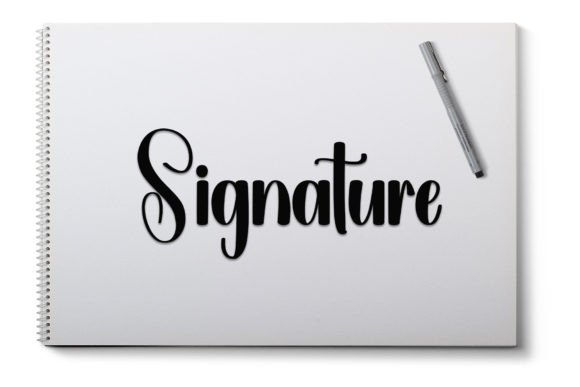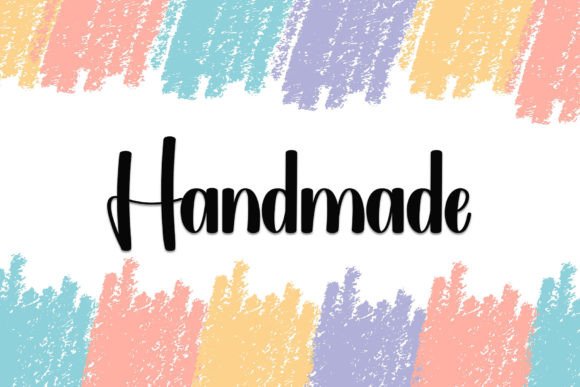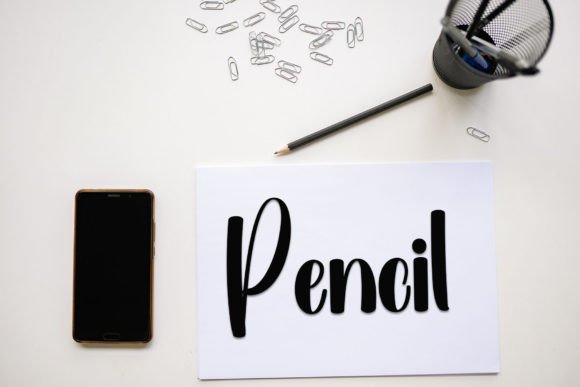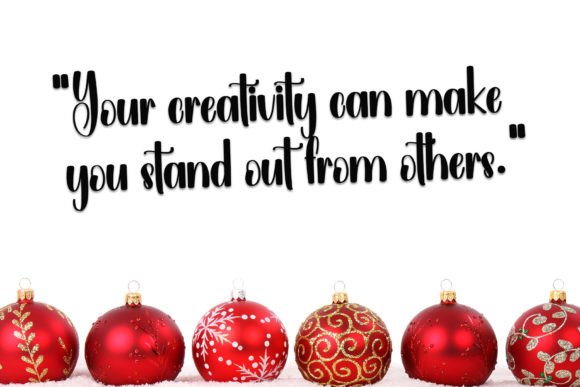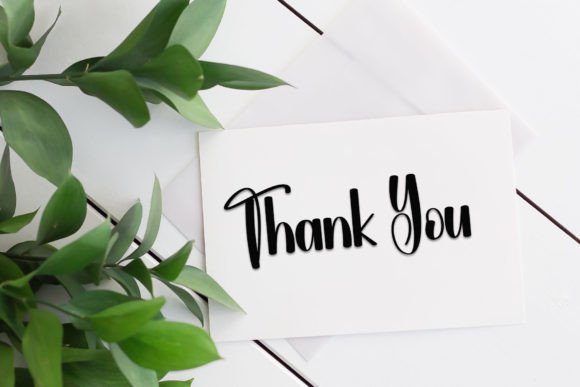
Hawaii Font: The Ultimate Festive Typeface for Your Holiday Designs
Are you looking for a font that embodies the spirit of the holiday season? Do you want to add a touch of charm and whimsy to your designs? Look no further than the Hawaii Font! This festive and happy typeface is perfect for greeting cards, gift labels, and holiday-themed projects. In this article, we’ll dive into the features and benefits of the Hawaii Font, and explore how it can elevate your designs to the next level.
A Festive and Happy Typeface
The Hawaii Font is a decorative typeface that exudes a sense of joy and festivity. Its unique flair and design elements are reminiscent of traditional holiday fonts, but with a modern twist. The font’s playful and cheerful atmosphere makes it perfect for designers and crafters who want to create holiday-themed projects that stand out from the crowd.
Perfect for Holiday Designs
The Hawaii Font is specifically designed for holiday-themed projects, making it the perfect choice for designers and crafters who want to create festive and engaging designs. Whether you’re creating greeting cards, gift labels, or holiday-themed posters, this font is sure to add a touch of charm and whimsy to your designs.
Decorative Elements and Unique Flair
The Hawaii Font features a range of decorative elements and unique flair that set it apart from other fonts. From intricate swashes to playful ligatures, this font has everything you need to create stunning holiday designs. The font’s decorative elements are carefully crafted to add a touch of elegance and sophistication to your designs, making it perfect for high-end holiday projects.
Use it for a Variety of Projects
The Hawaii Font is versatile and can be used for a variety of projects, including:
- Greeting cards: Create stunning holiday greeting cards that will impress your friends and family.
- Gift labels: Add a touch of charm to your gift labels with this festive font.
- Holiday-themed posters: Create eye-catching holiday posters that will grab attention.
- Social media graphics: Use the Hawaii Font to create engaging social media graphics that will spread holiday cheer.
Why Choose the Hawaii Font?
So why choose the Hawaii Font for your holiday designs? Here are just a few reasons:
- Unique and festive design: The Hawaii Font has a unique and festive design that will add a touch of charm to your designs.
- Versatile: The font can be used for a variety of projects, from greeting cards to holiday posters.
- High-quality: The font is carefully crafted to ensure high-quality and crisp designs.